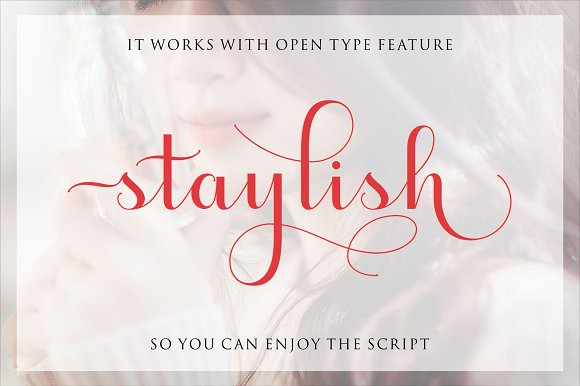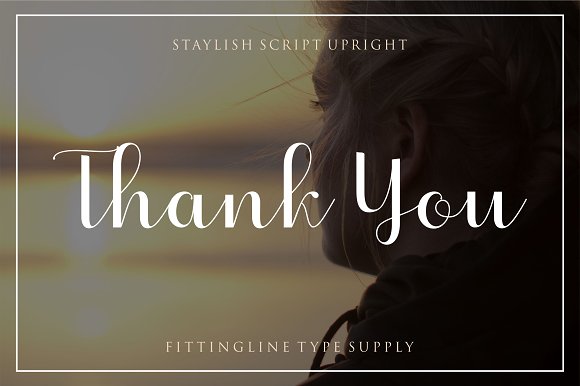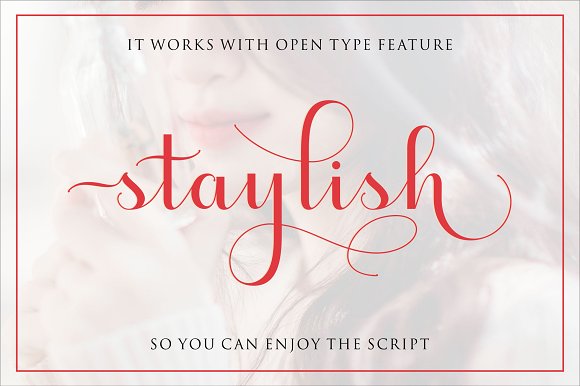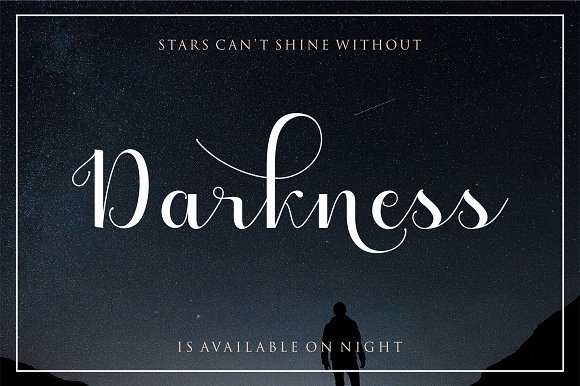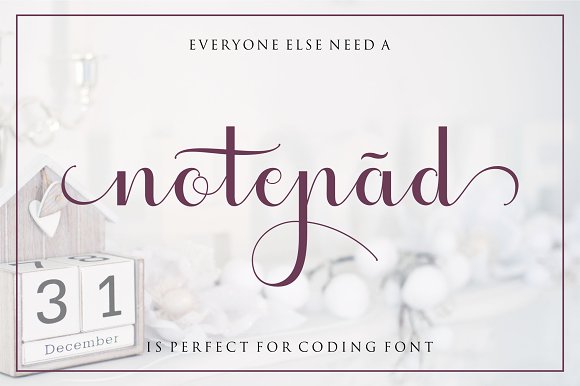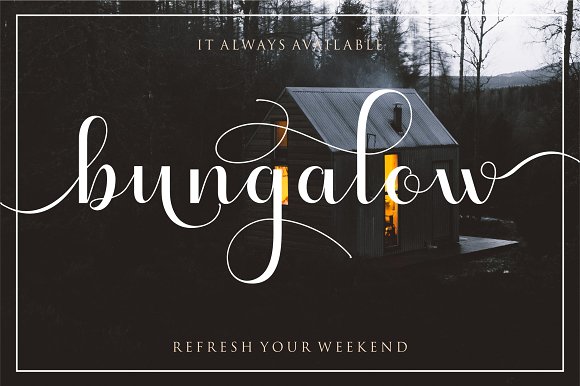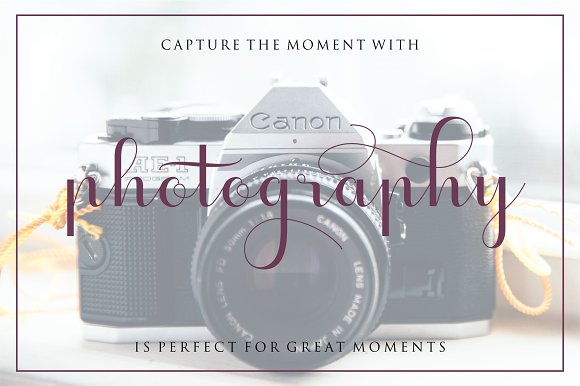
Staylish Upright Font
About Staylish Upright Font
Staylish Upright is a romantic & modern upright font created by Fittingline Type Supply.
This beautiful smooth font will give your project a fresh touch. It comes with 264 standard glyphs and 408 extra alternate glyphs, packed with swashes.
The Staylish Upright font is extremely well suited for wedding and birthday invites, t-shirts & apparel, signs and many more projects that require a personal touch.